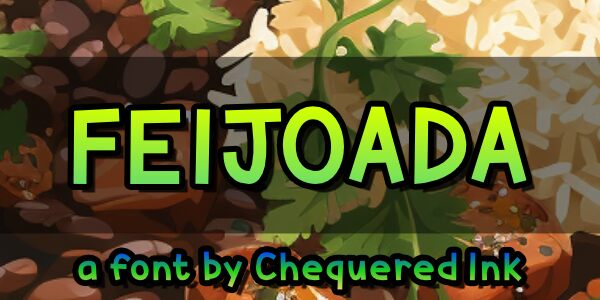
Feijoada
Looking to add a playful and whimsical touch to your creative projects? Look no further than Feijoada, a charming display font designed by Chequered Ink. With its unique cartoon style, Feijoada is perfect for adding a fun and lighthearted feel to any design.
Whether you're working on children's book illustrations, packaging design, or branding for a quirky new product, this font has the versatility to elevate your project with its distinct personality. Its bold and lively letterforms make it an ideal choice for grabbing attention and creating memorable visuals.
Embrace the creativity and potential of Feijoada in your next design endeavor.